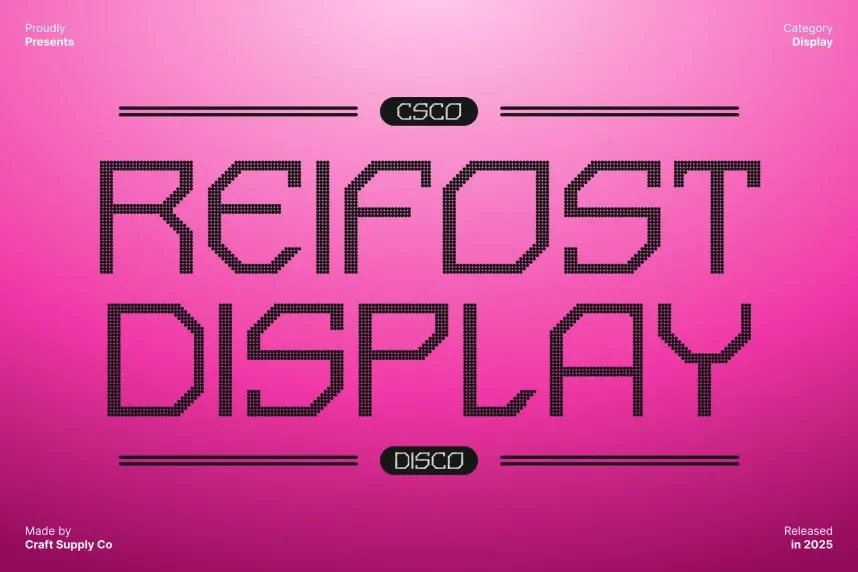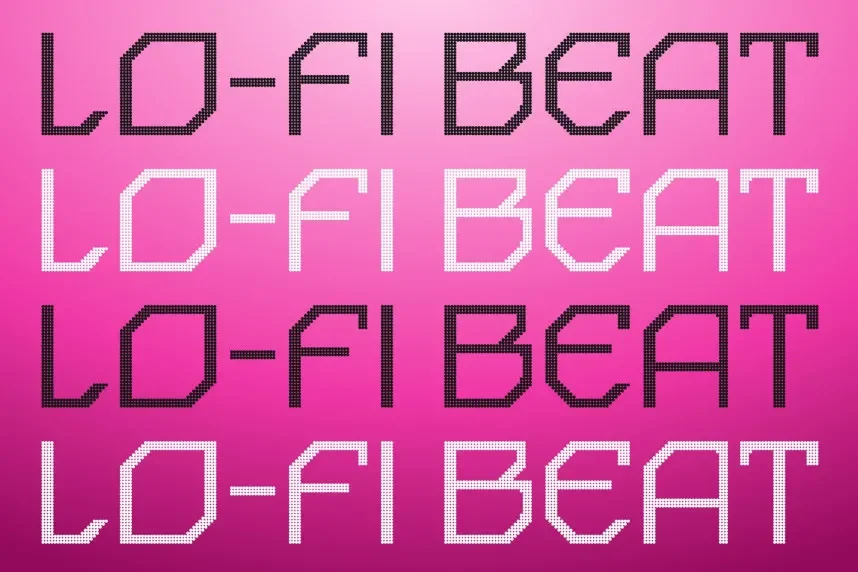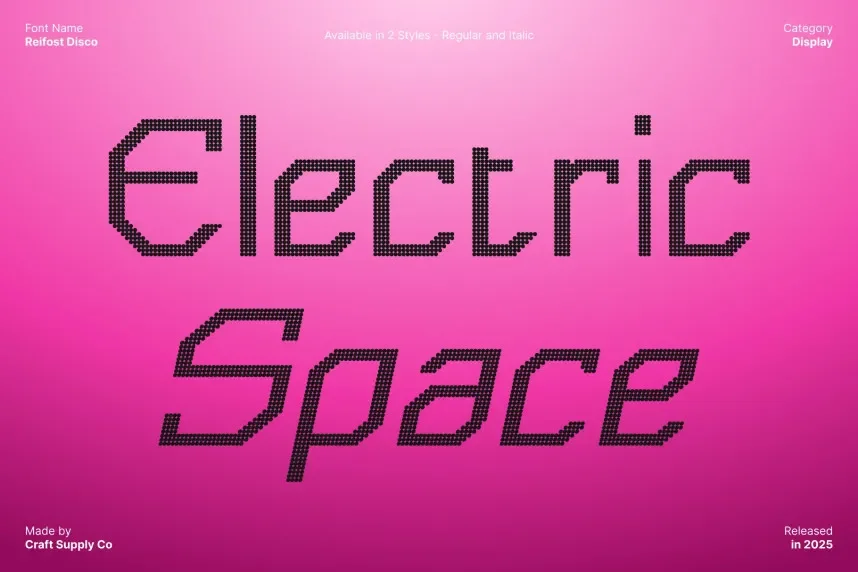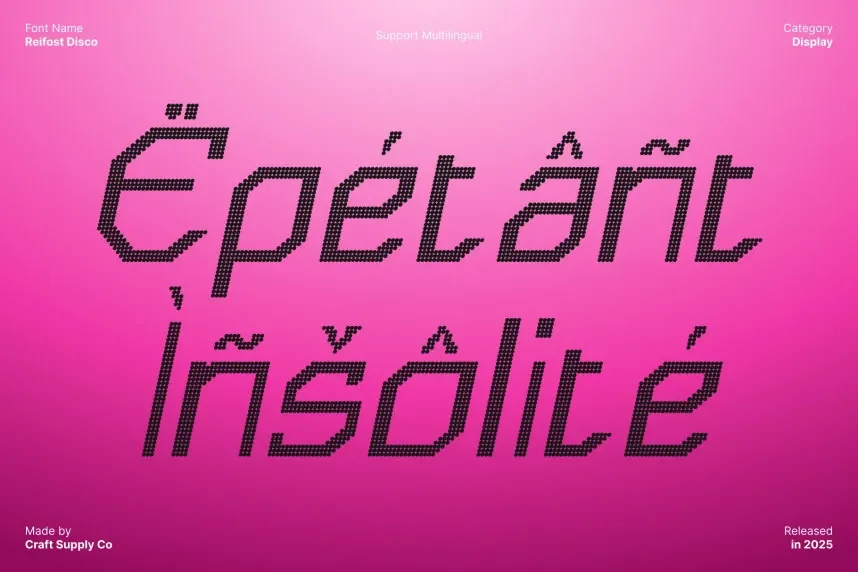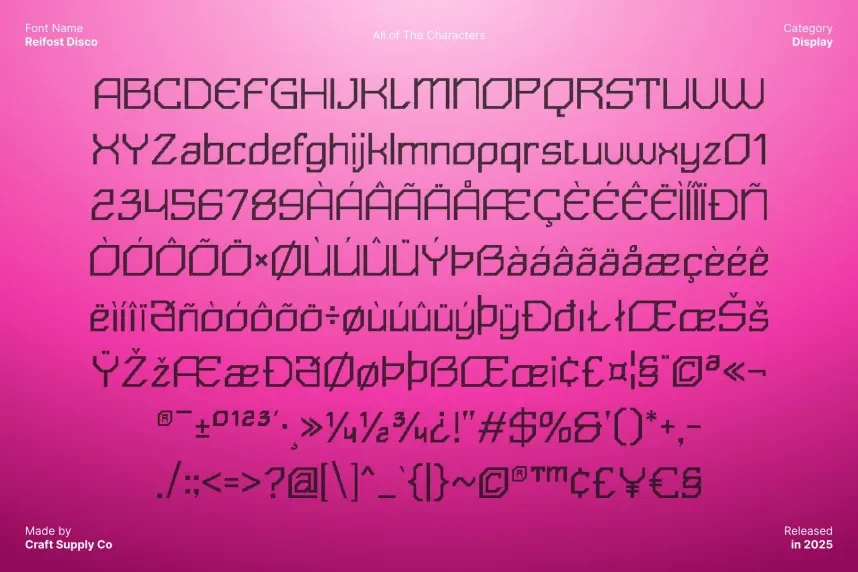
Reifost Disco Font addresses the need for bold retro typography that remains readable across formats. Some disco fonts lose structure when scaled.
Reifost Disco is a bold display font with geometric curves, wide letterforms, and consistent stroke weight. The font maintains clarity in large headlines and graphic layouts.